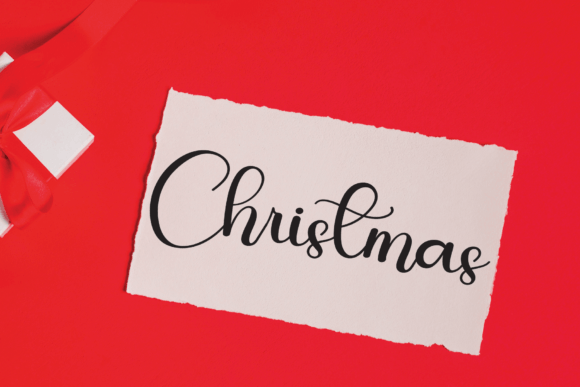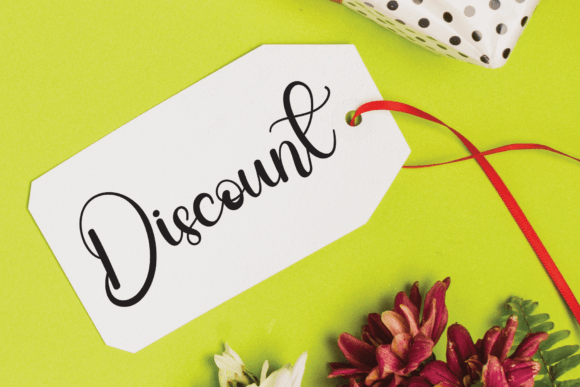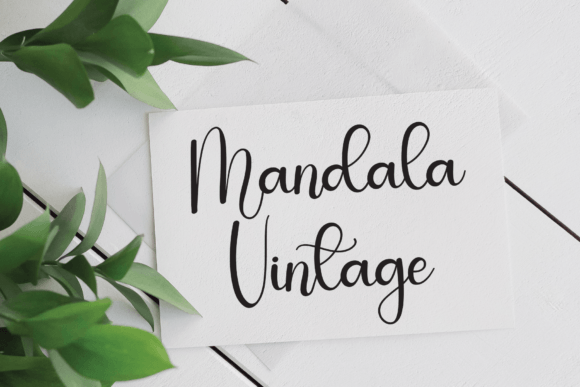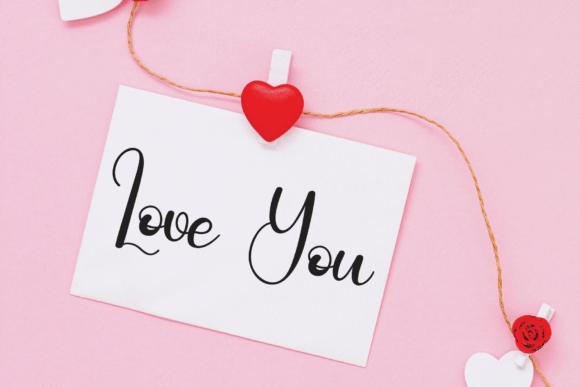
Introducing Handhome Font: The Elegant Touch for Your Designs
Are you tired of using the same old fonts for your projects? Look no further! Handhome Font is a unique handwritten font that adds an elegant touch to any design. With its timeless style and distinctive flair, this font is sure to make your projects stand out from the crowd.
A Font Like No Other
Handhome Font is a one-of-a-kind font that boasts a totally different and refreshing style. Its elegant touch is perfect for designers and crafters who want to add a personal touch to their work. Whether you’re creating a logo, brochure, or social media post, Handhome Font is the perfect choice.
Timeless Style
One of the best things about Handhome Font is its timeless style. Unlike trendy fonts that quickly go out of style, Handhome Font is a classic font that will remain relevant for years to come. Its unique and elegant design ensures that your projects will look great now and in the future.
Handhome Font is a versatile font that is perfect for designers and crafters alike. Whether you’re creating a professional design or a personal project, this font is sure to impress. Its elegant touch and timeless style make it perfect for a wide range of projects, including:
- Brochures and flyers
- Stationery and invitations
Easy to Use
Spectacular Designs
With Handhome Font, you can create spectacular designs that are sure to impress. Its elegant touch and timeless style make it perfect for creating beautiful and eye-catching designs. Whether you’re a professional designer or a crafty DIY enthusiast, Handhome Font is the perfect choice for your next project.
What Sets Handhome Font Apart
So, what sets Handhome Font apart from other fonts? Here are a few things that make it unique:
- Unique and elegant design
- Timeless style that won’t go out of fashion
- Versatile and perfect for a wide range of projects
- Perfect for designers and crafters alike
In conclusion, Handhome Font is a unique and elegant font that is perfect for designers and crafters alike. Its timeless style and distinctive flair make it perfect for a wide range of projects, from professional designs to personal crafting and DIY projects. With its easy-to-use design and versatile style, Handhome Font is sure to become a favorite font for many designers and crafters.